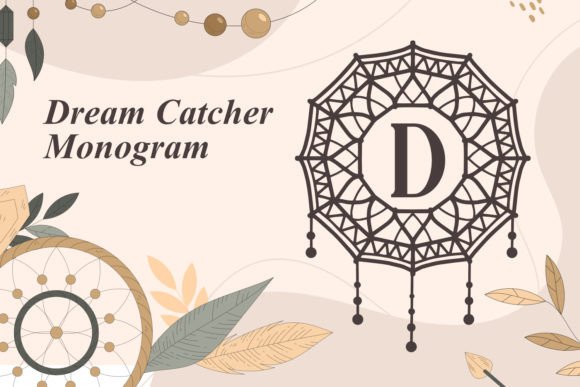
Nestled in this collection is a treasure trove of delicate artistry – the Dream Catcher Monogram Font, crafted with love by Typefar. This decorative font is a masterpiece that will add a touch of winter wonderland charm to any project you embark on. With its intricate patterns and elegant curves, it's the perfect choice for those seeking a font that exudes creativity and uniqueness.
Immerse yourself in the enchanting beauty of the Dream Catcher Monogram Font, where every letter dances with grace and elegance. Let your imagination soar as you craft personalized invitations that capture the spirit of the season, or design greeting cards that overflow with warmth and heartfelt messages. The possibilities are endless, waiting for you to explore and unveil.
With Dream Catcher Monogram Font, you can effortlessly create captivating presentations that will transport your audience to a winter wonderland of enchantment. Let the exquisite swirls and flourishes of this font captivate their attention and leave a lasting impression. Whether you're a seasoned designer or just starting your journey into the world of digital art, this font is an invaluable asset that will elevate your work to new heights.
So, embrace the magic of the Dream Catcher Monogram Font and let your creativity take flight. Transform your digital designs into enchanting masterpieces, craft heartfelt greeting cards that touch the heart, and design presentations that ignite the imagination. The possibilities are infinite, and the beauty you create will leave a lasting impression on all who behold it. Step into a world of winter wonder with Dream Catcher Monogram Font – your gateway to a realm of enchantment and artistry.